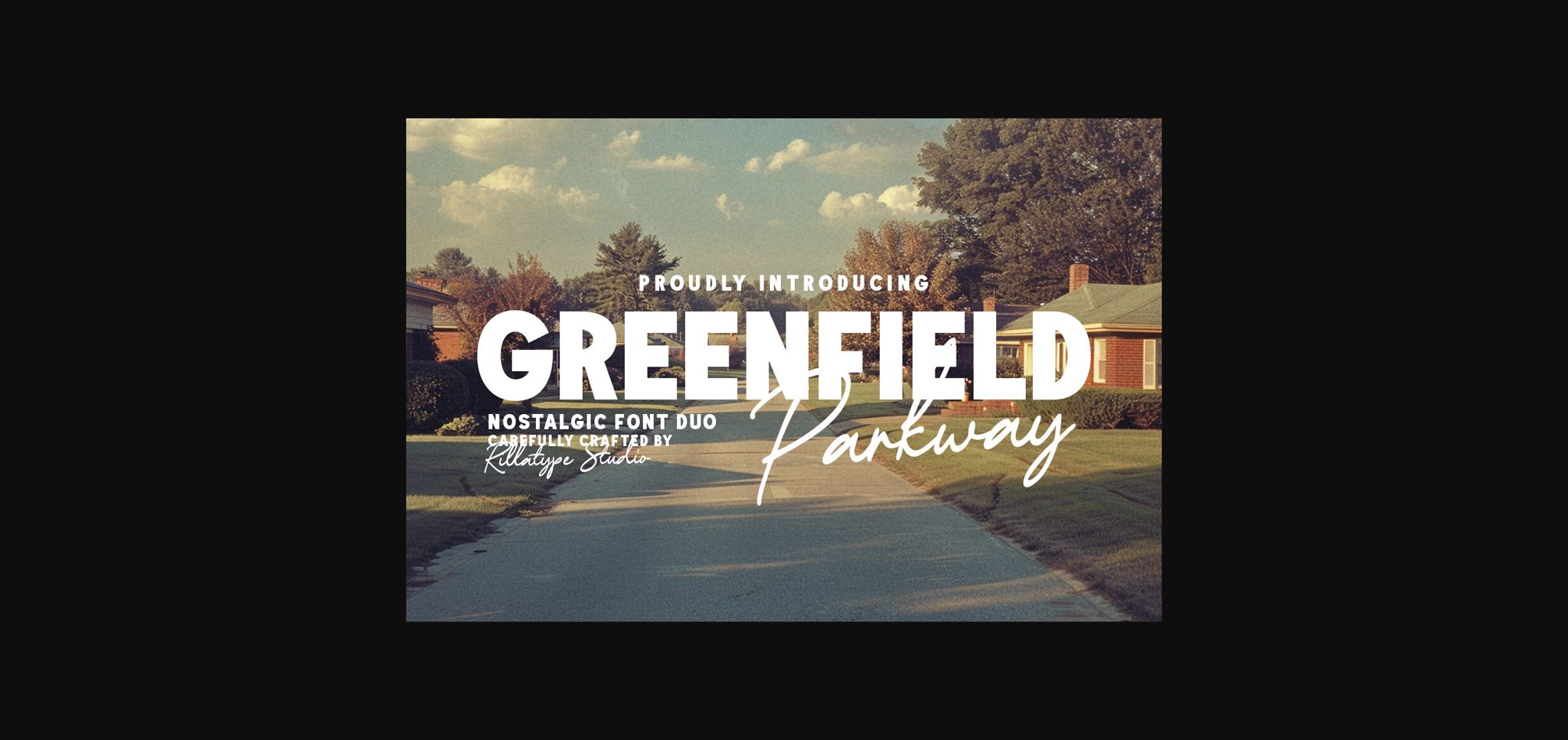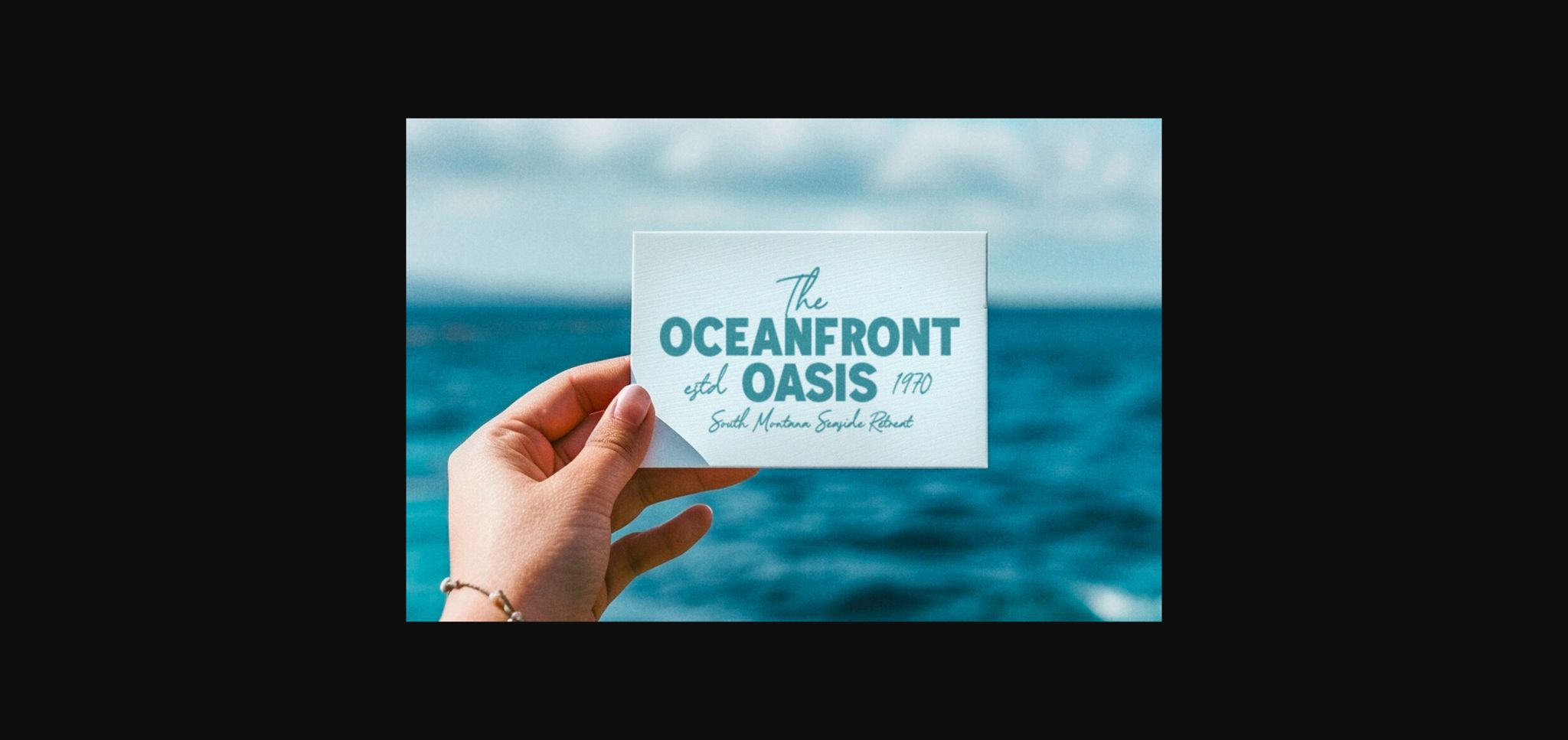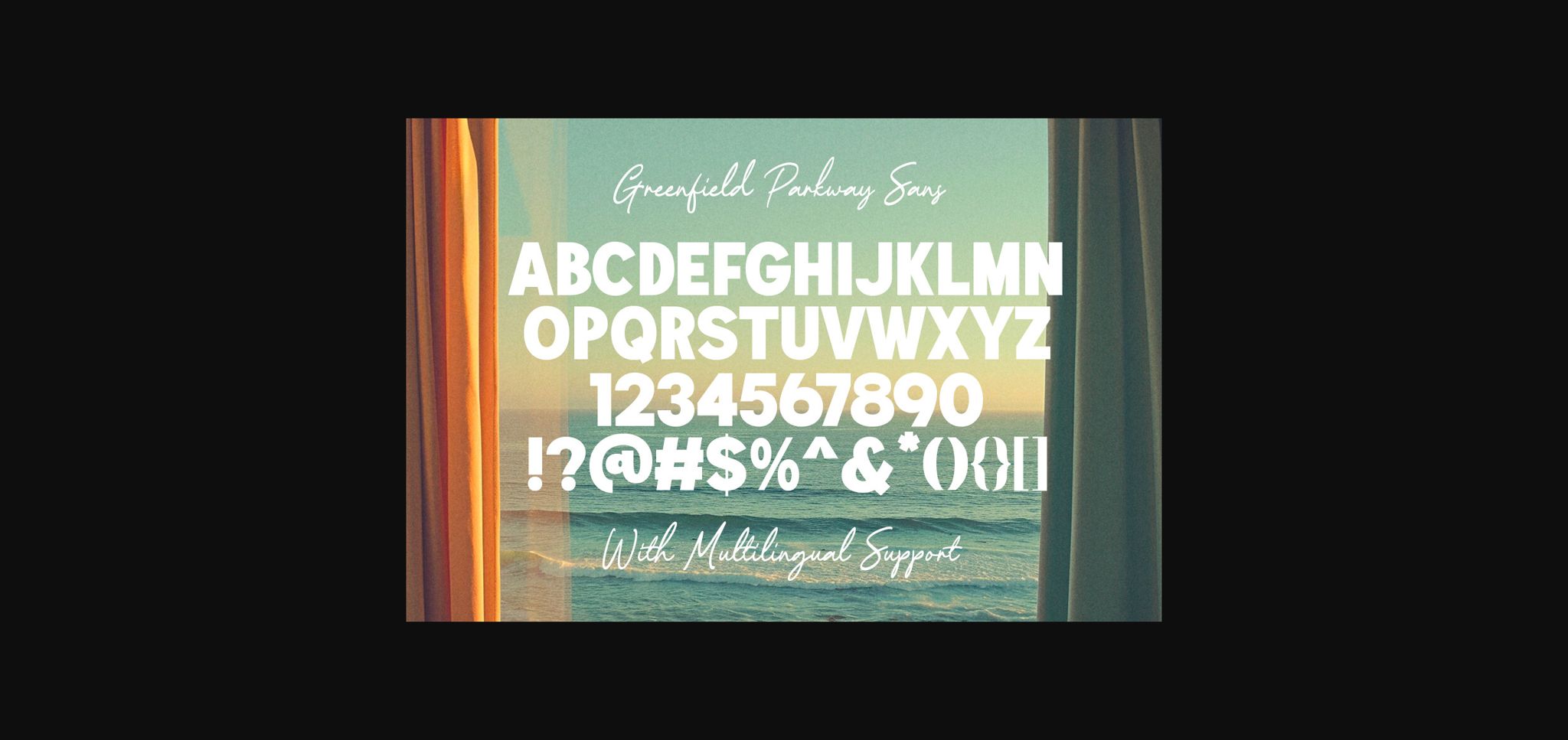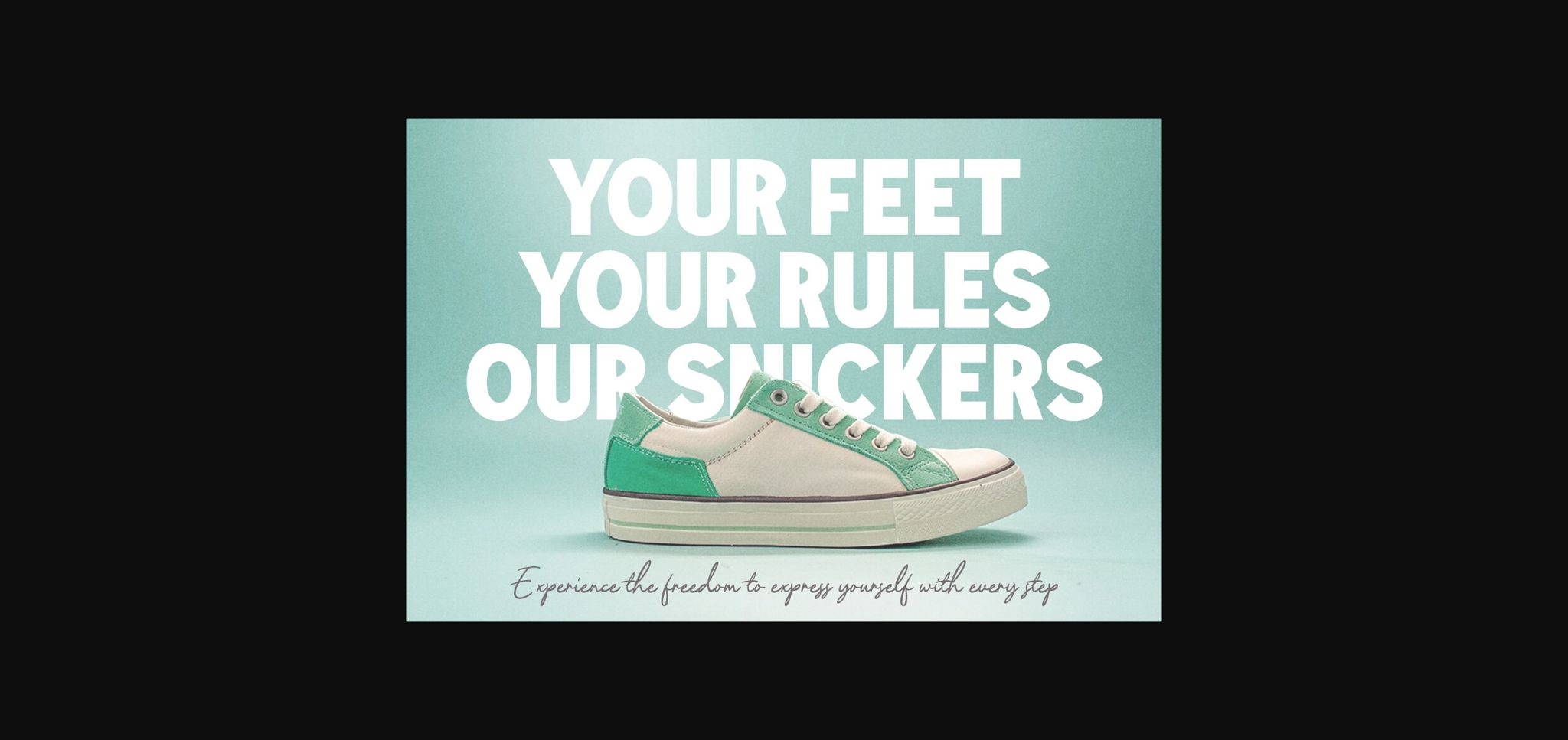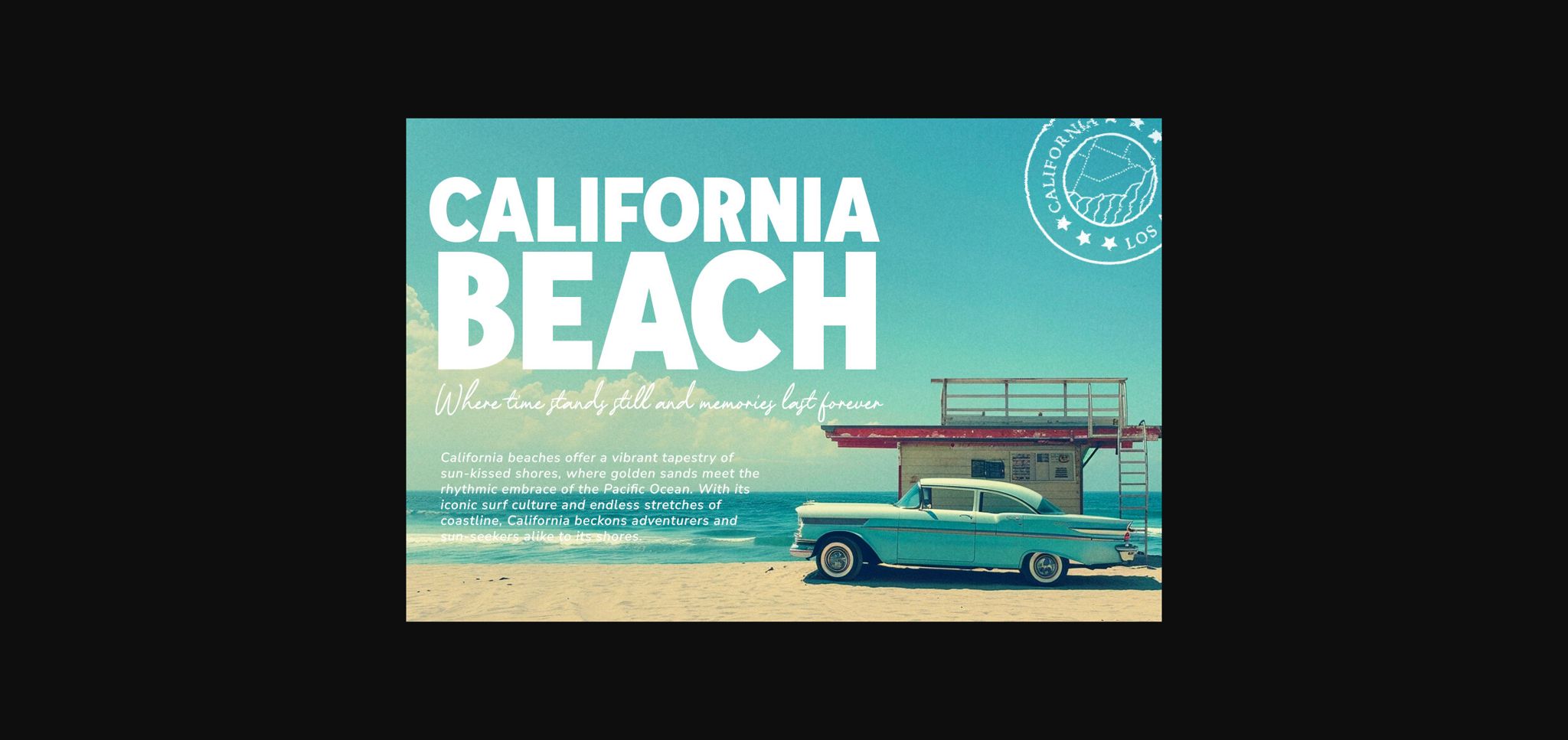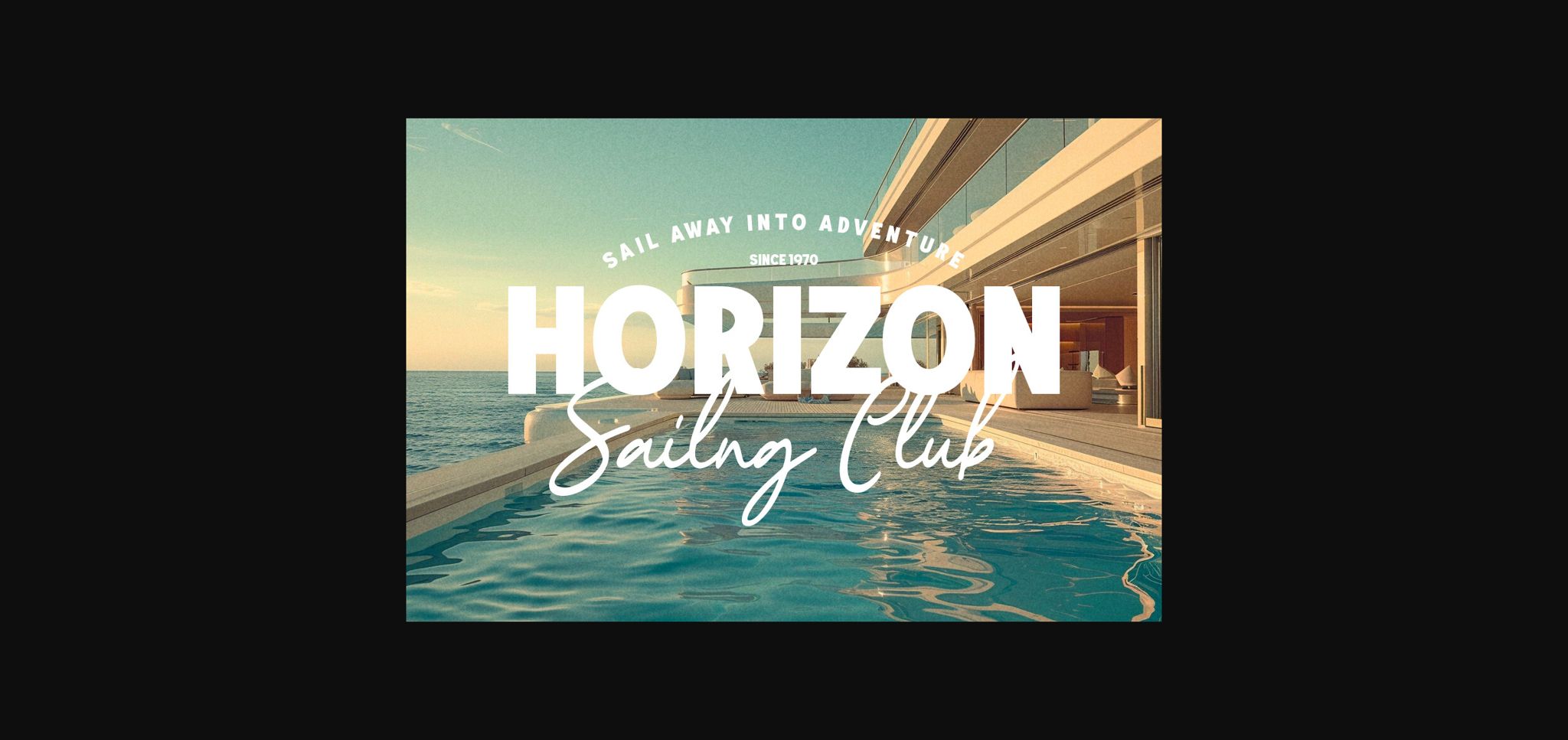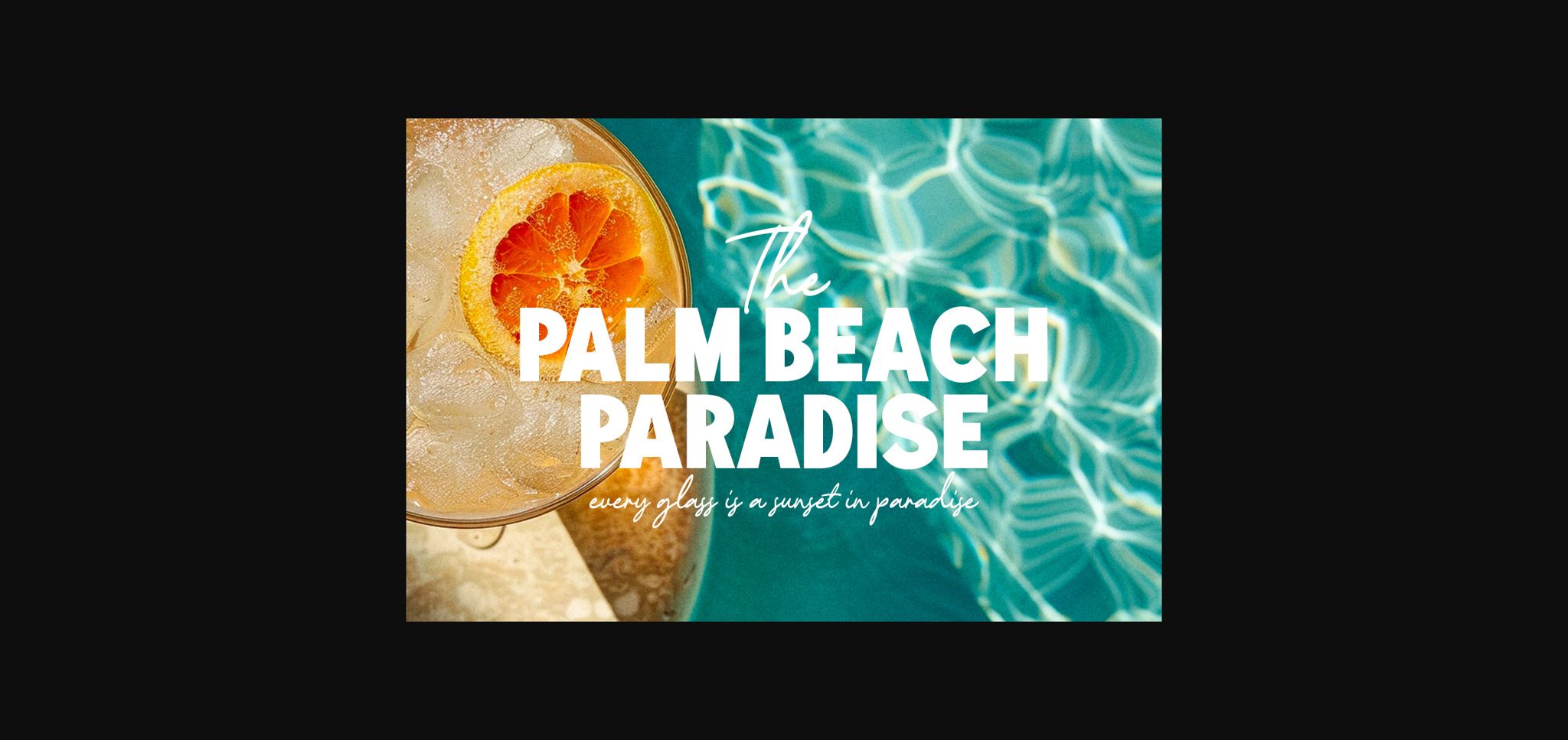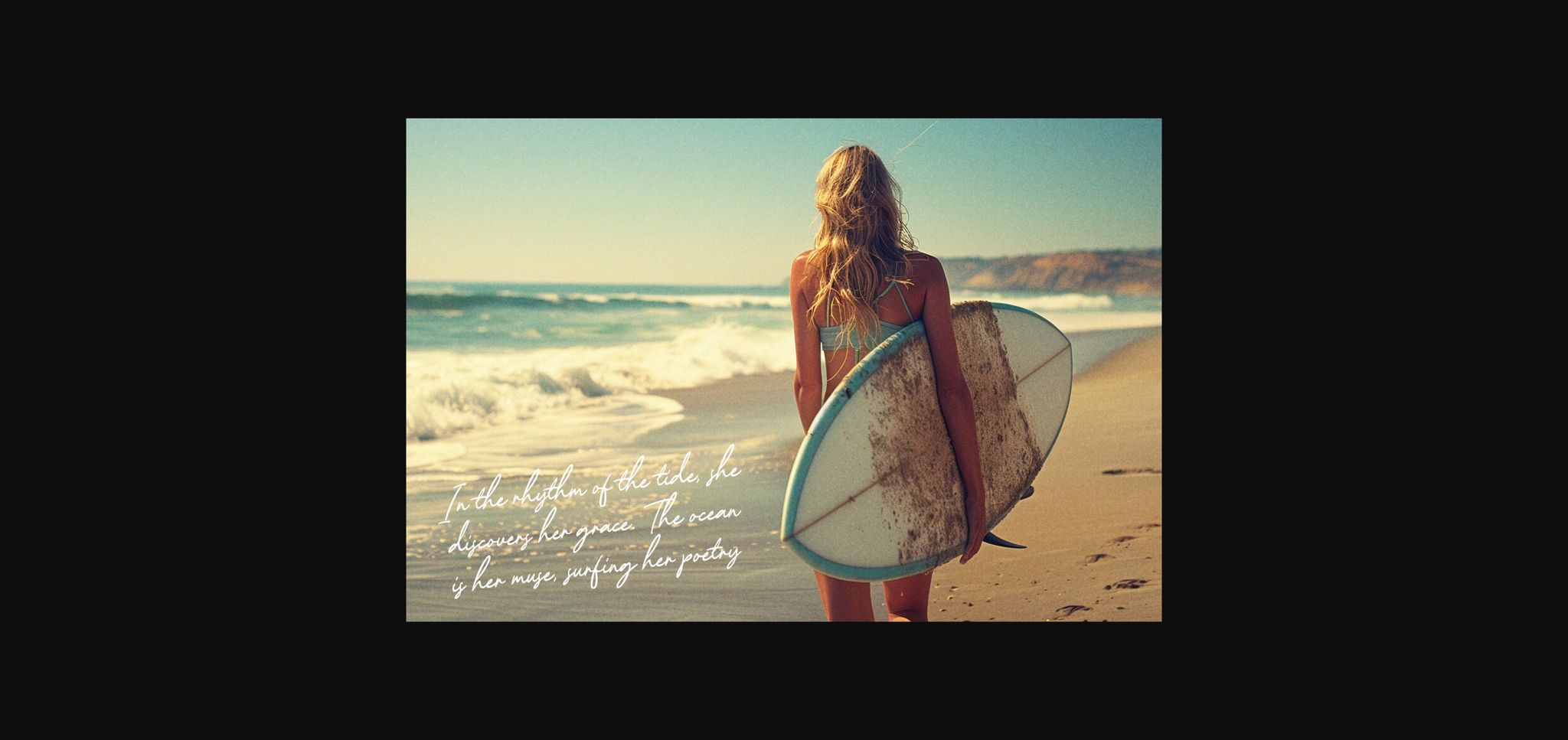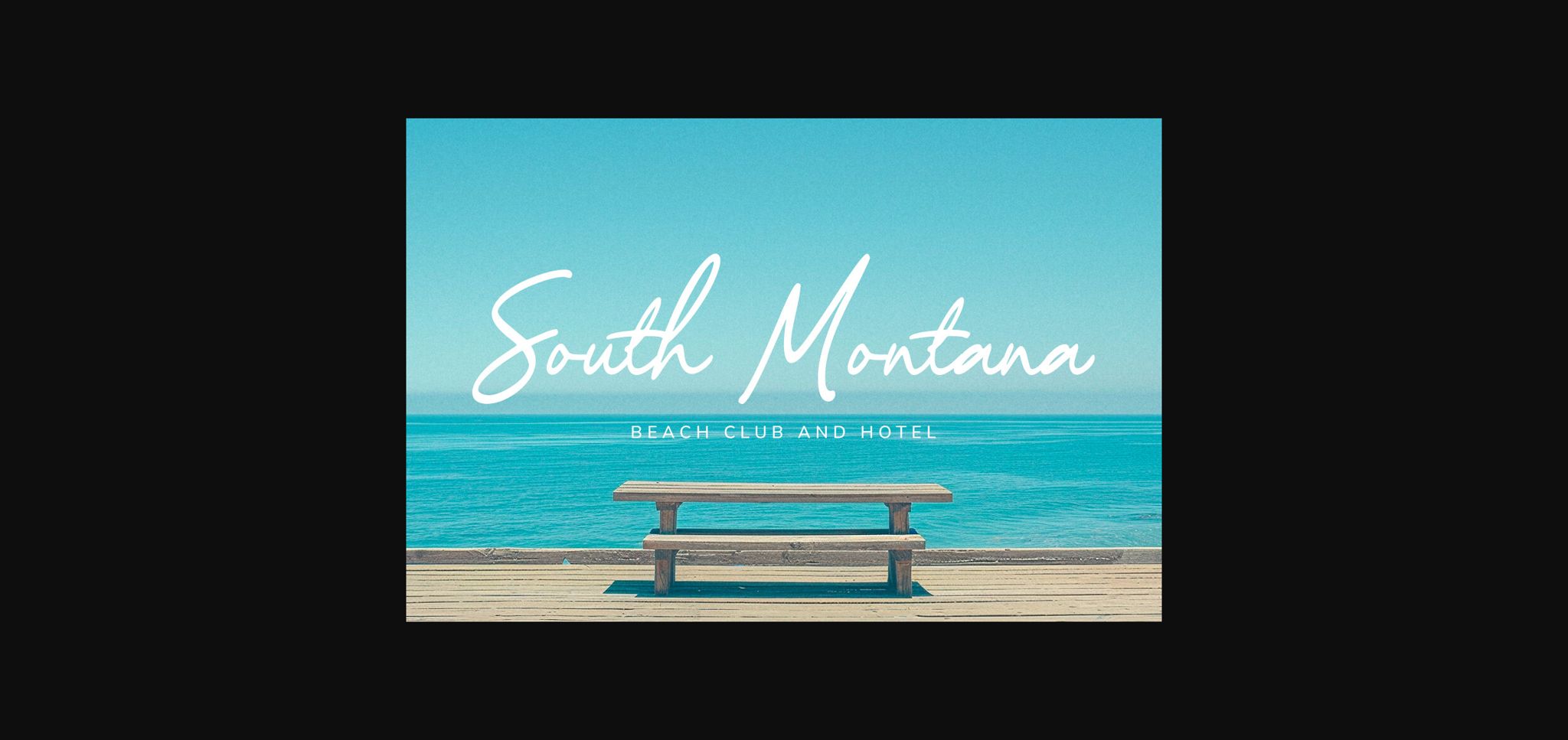
Greenfield Parkway Font
About Greenfield Parkway Font
Greenfield Parkway Nostalgic Font Duo captures the essence of timeless elegance with its harmonious blend of sans serif and script styles. The sans serif font exudes modernity and clarity, while the script font adds a touch of nostalgia and warmth to your designs. Whether you’re crafting invitations, branding materials, or social media posts, this duo offers versatility and charm. Let your creativity flourish as you bring a touch of vintage sophistication to your projects with Greenfield Parkway.